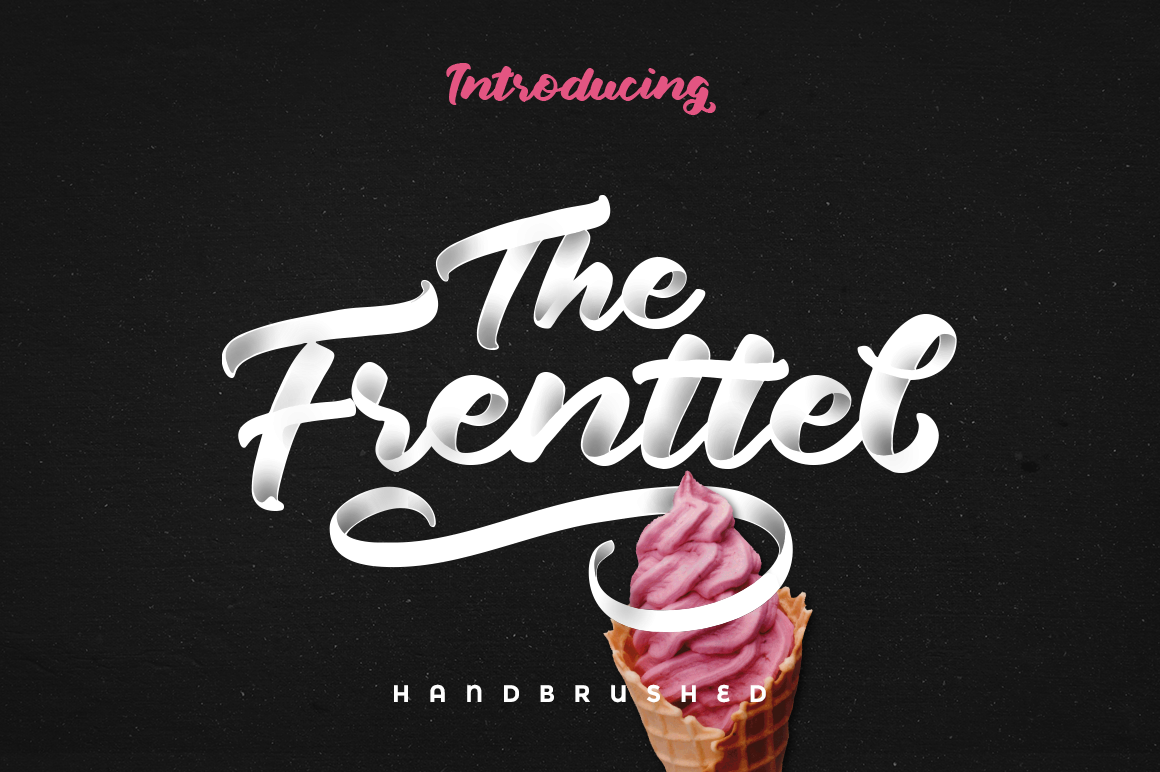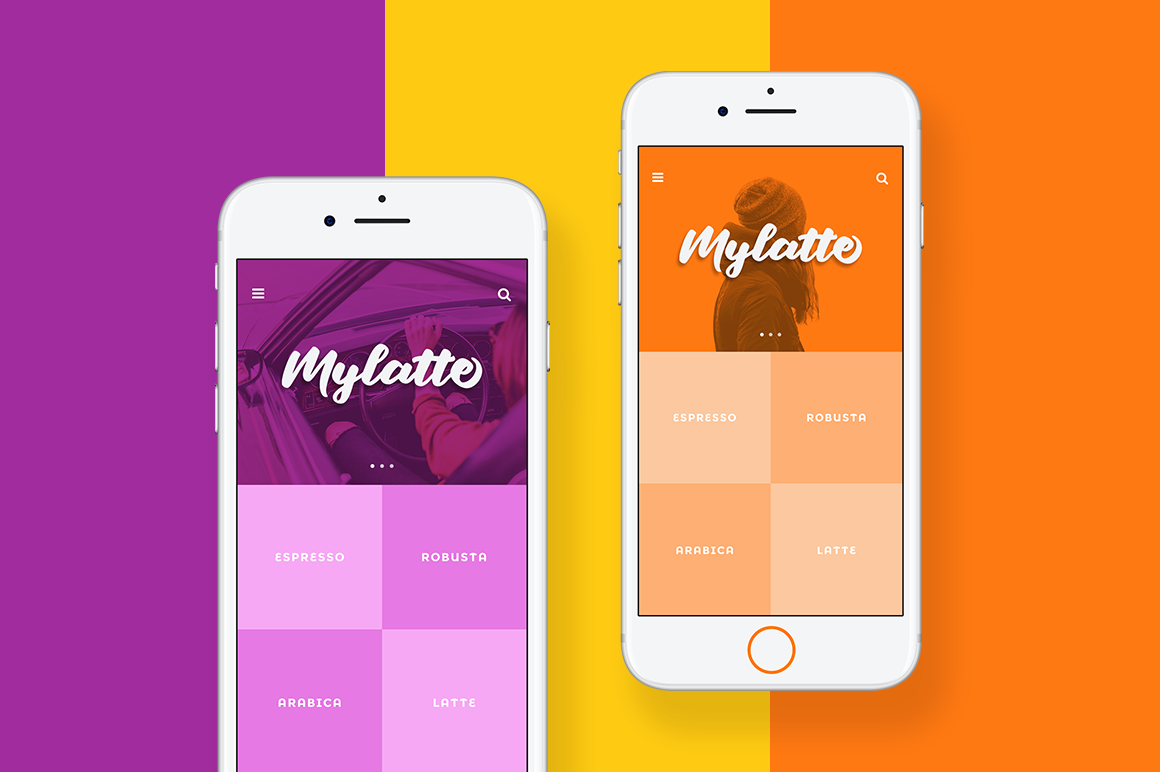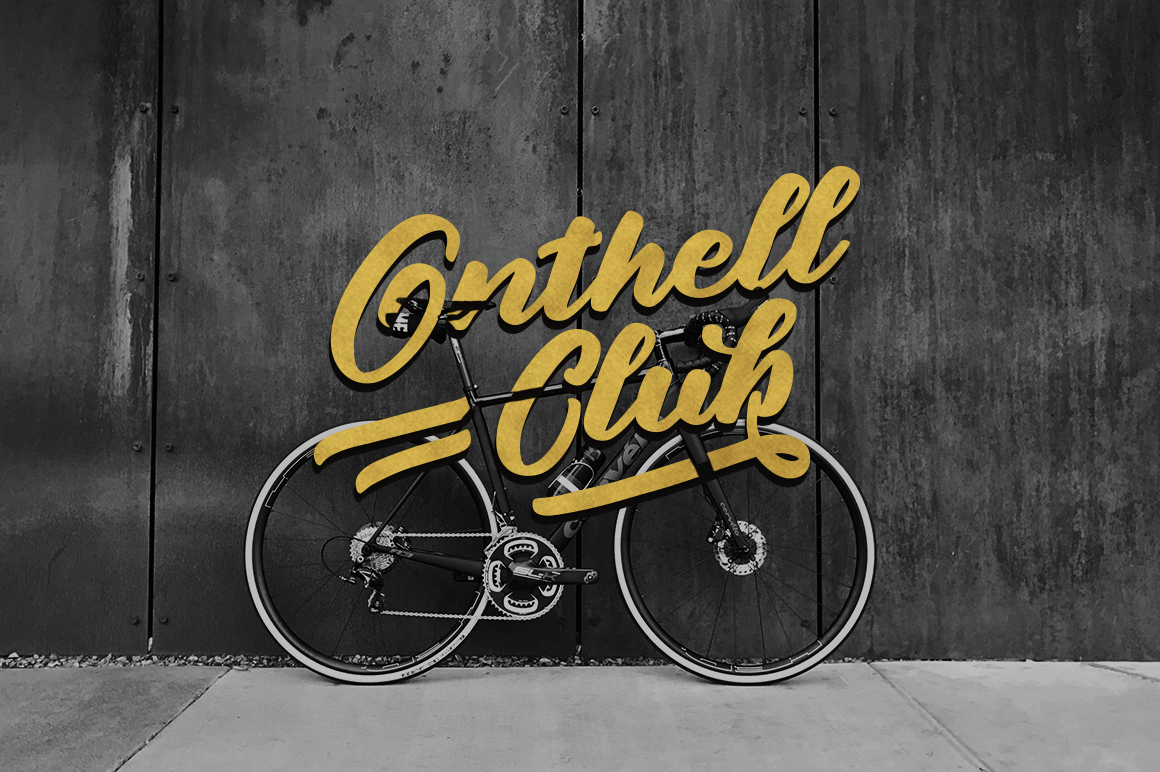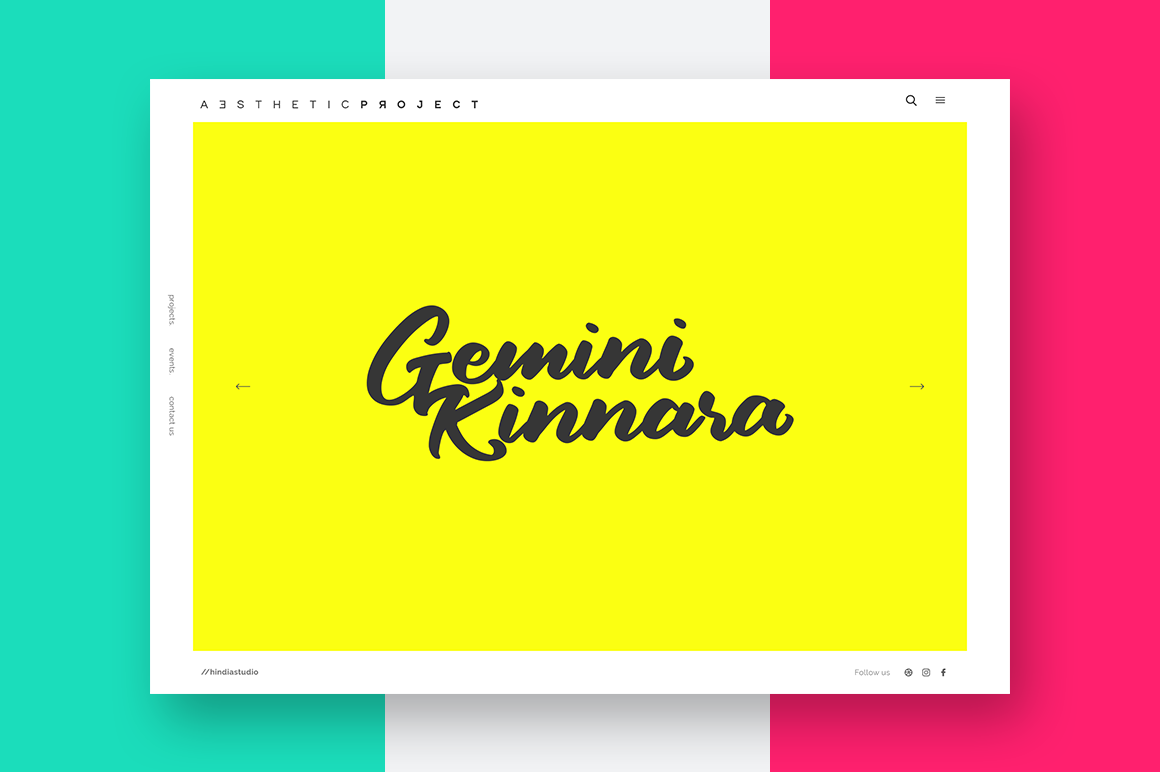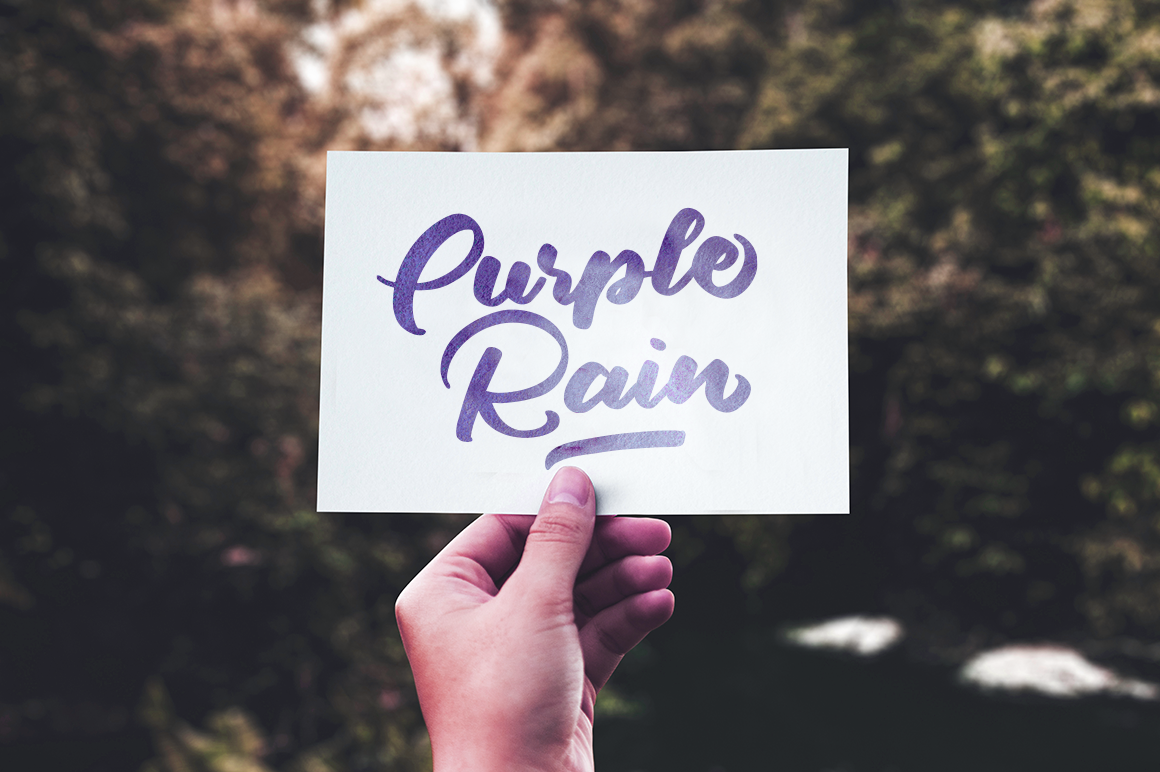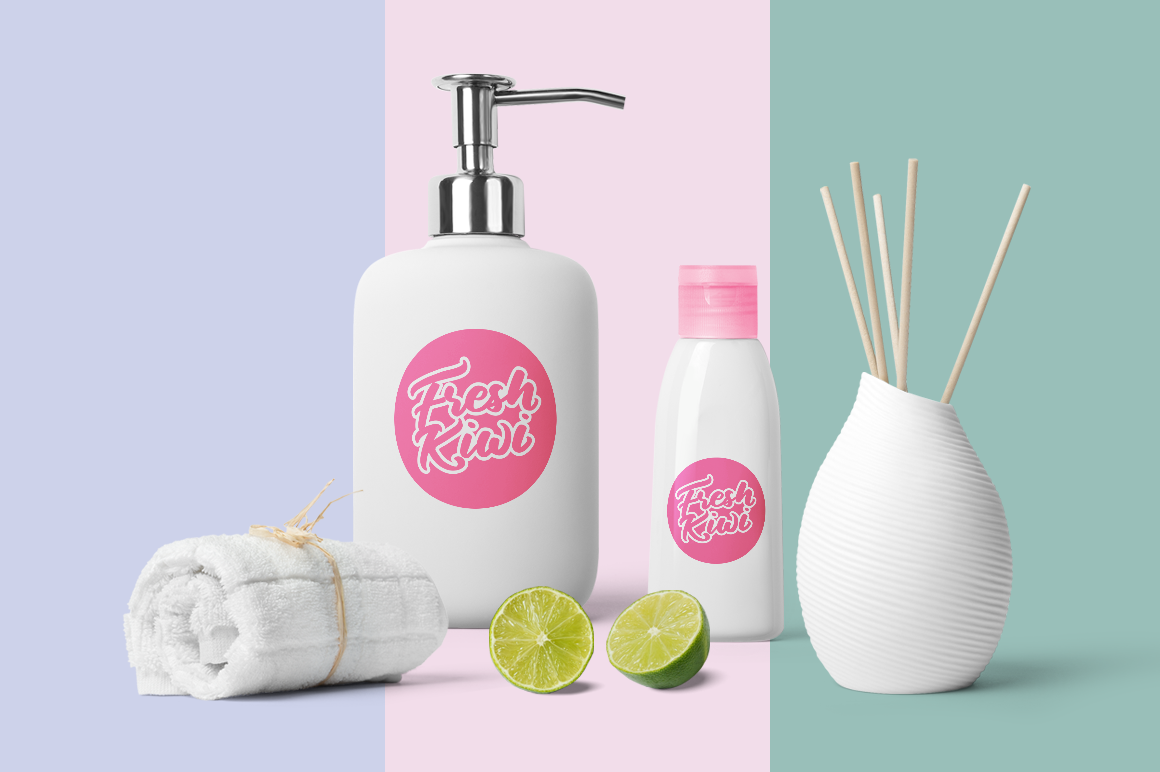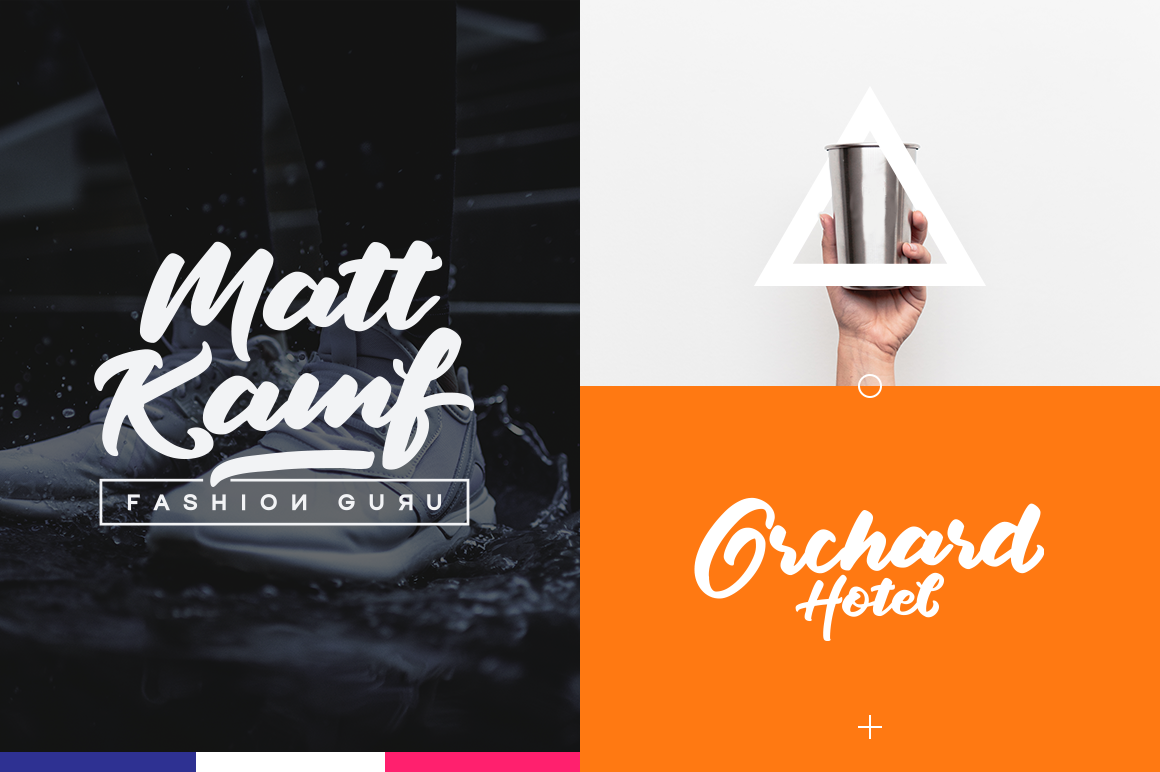
The Frenttel Font
About The Frenttel Font
“The Frenttel is a gorgeous cursive script font which has chubby and smooth look. The characters are ideal to make appealing messages to fit your project. This is a perfect font to sweeten up all your creative works with a modern, fresh looking headline vibe.”